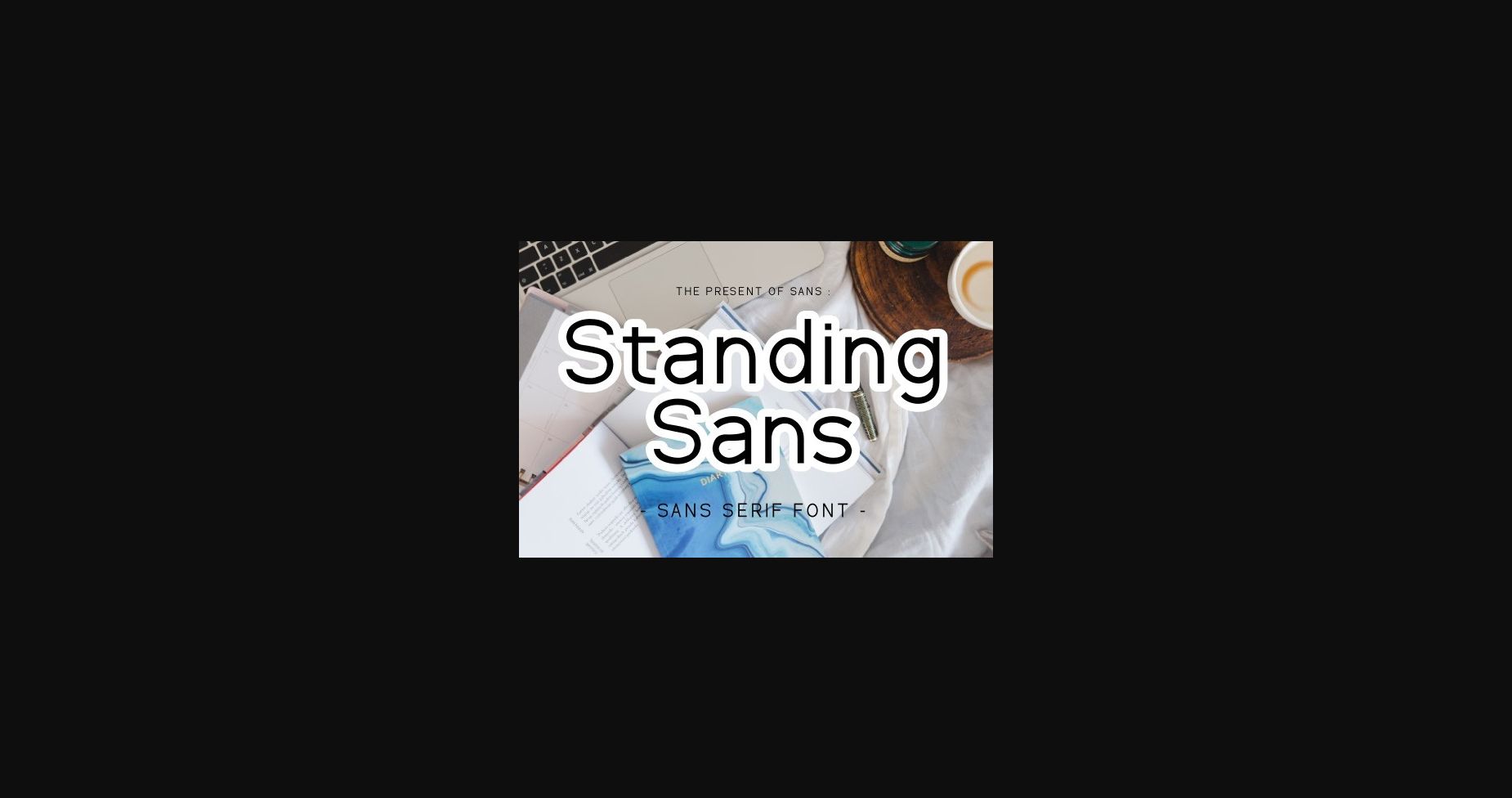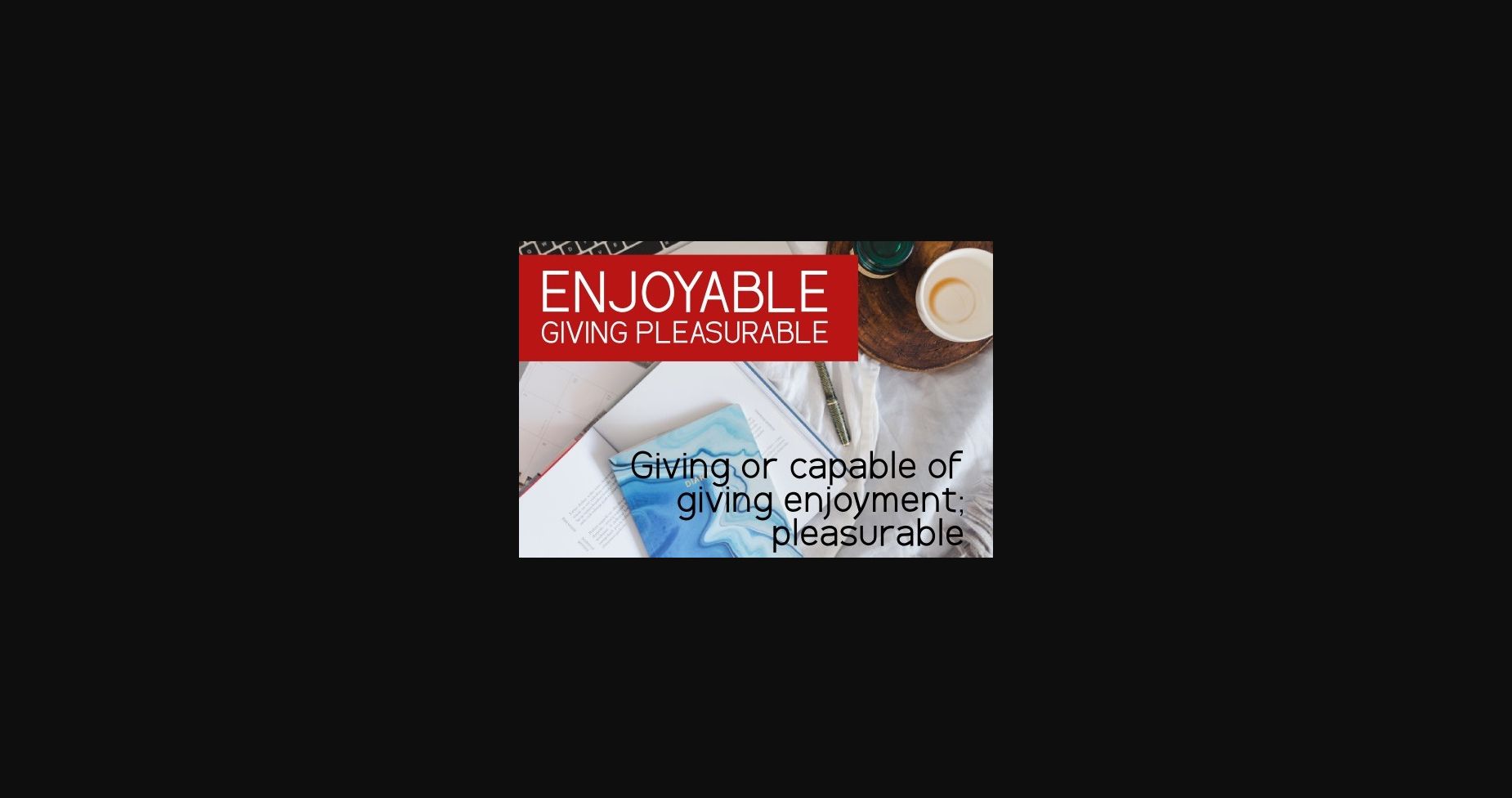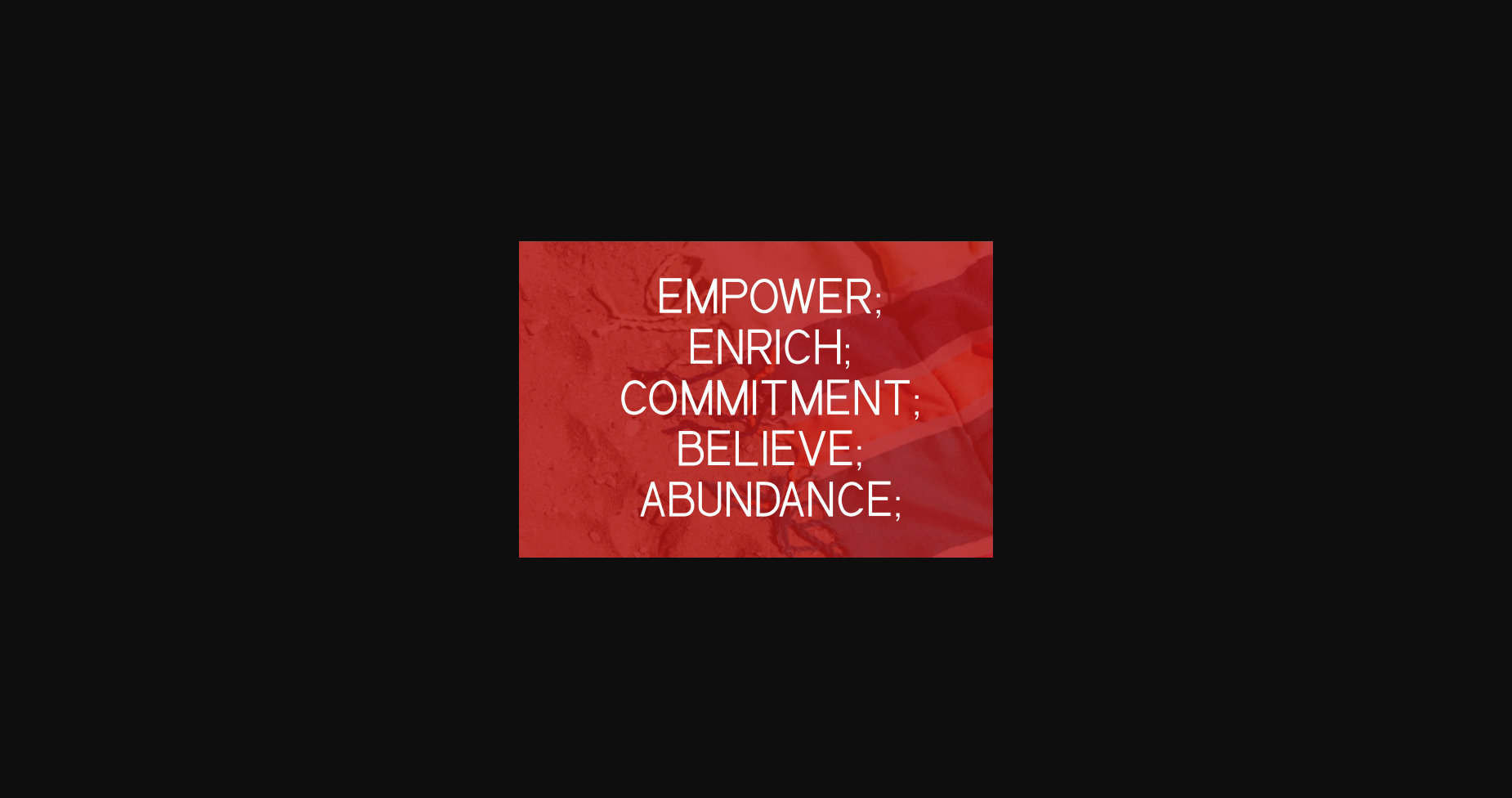
Standing Sans Font
About Standing Sans Font
Standing Sans is a minimal and neat sans serif font. It can easily be matched to an incredibly large set of projects, so explore its endless possibilities.